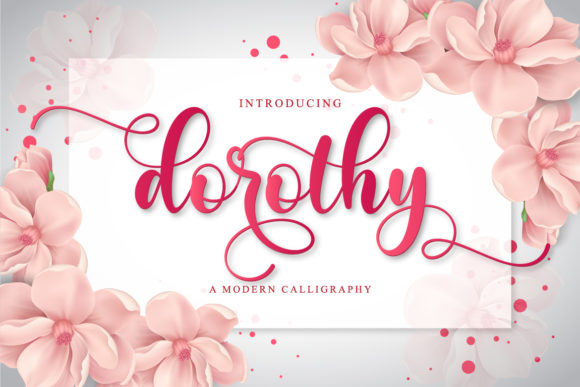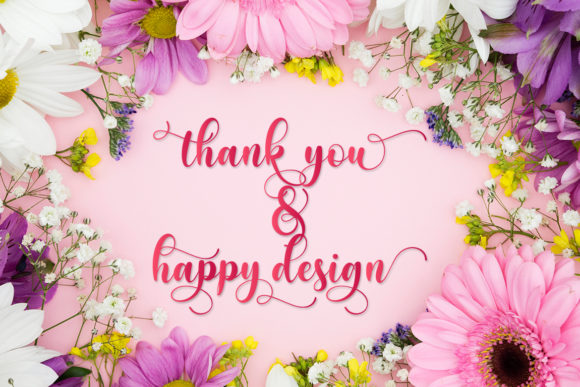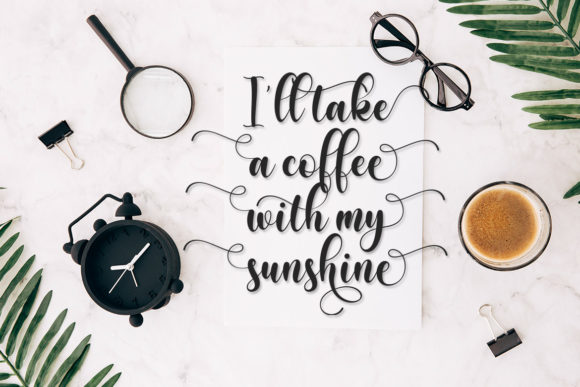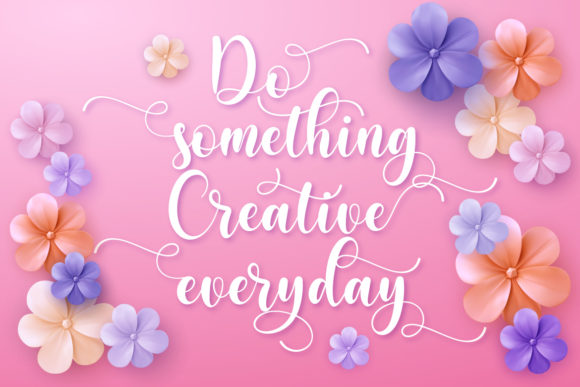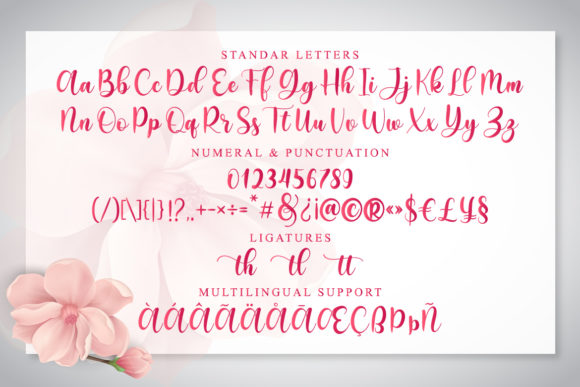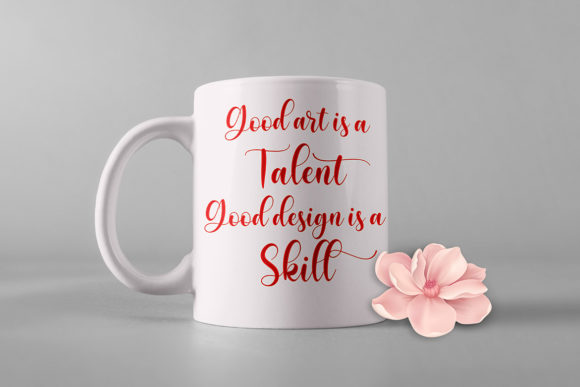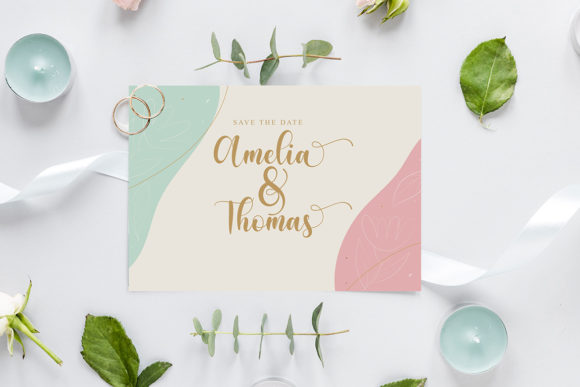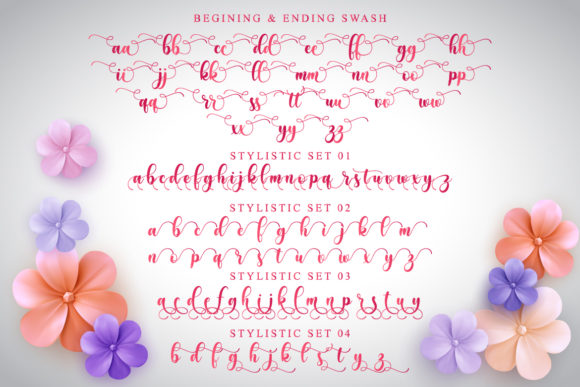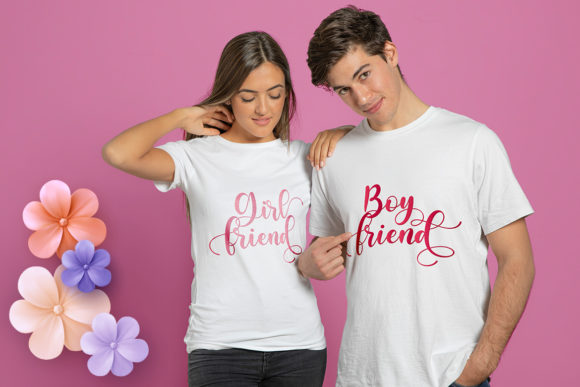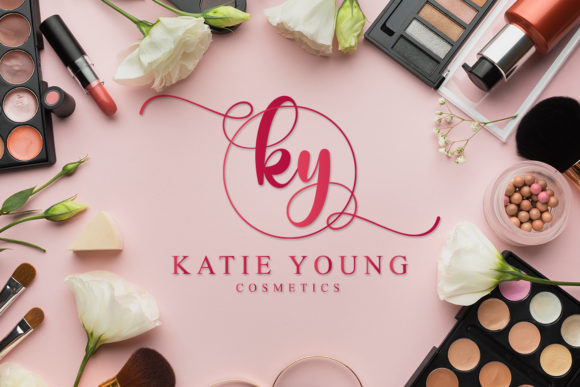
Dorothy Font
About Dorothy Font
Dorothy is a cute and casual handwritten font with an incredibly friendly feel. It features gorgeous swashes and ligatures that make this script incredibly versatile. Whether you’re looking for fonts for Instagram or calligraphy scripts for DIY projects, Dorothy will turn any creative idea into a true piece of art!